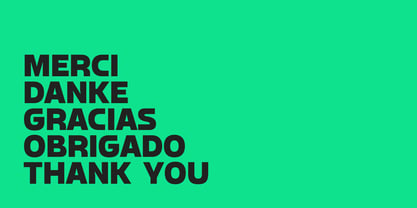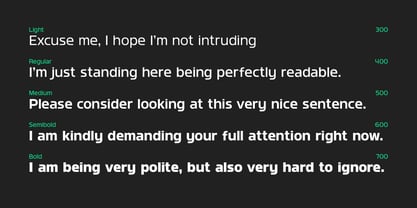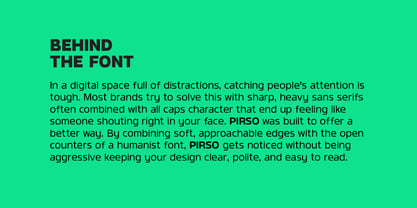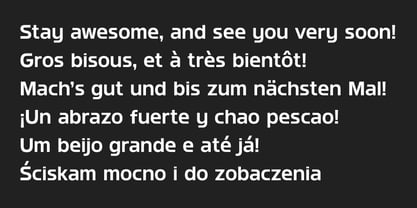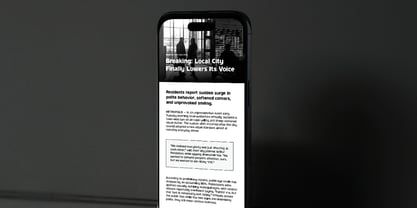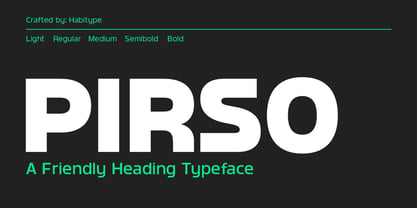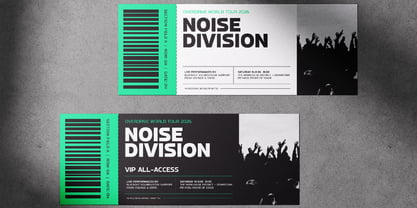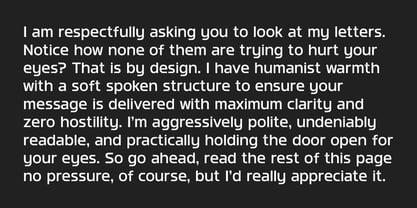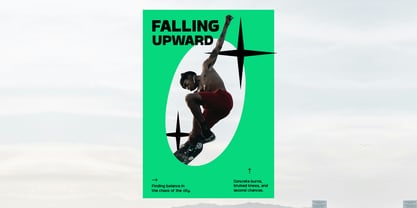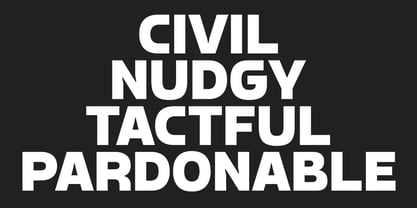
Pirso
by Habitype
The Pirso Font Family was designed by Fahrul Saputra and published by Habitype. Pirso contains 5 styles and family package options. More about this family
Created as a polite alternative to the harsh, "shouting" sans-serifs that crowd today's digital landscape, Pirso captures visual attention through warmth and clarity rather than visual noise. Its balanced proportions and soft geometry ensure exceptional legibility across both high-resolution displays and print media.
The defining characteristics of this typeface are its softened, rounded corners and generous open counters, making it an essential tool for approachable branding and comfortable digital reading.
This versatile family encompasses 5 styles, ranging from Light to Bold to provide flexibility for complex design environments.
Designers: Fahrul Saputra
Foundry: Habitype